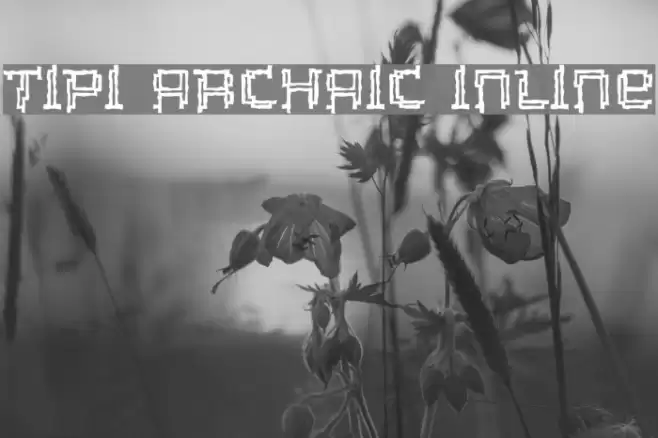
Tipi Archaic Inline Font
Tipi Archaic Inline Description
This font features a rugged, hand-drawn style with an archaic and tribal aesthetic. The characters are outlined with a rough, uneven stroke that gives them a distinct, organic appearance. The uppercase and lowercase letters maintain a consistent height, while the numerals and special characters follow the same design principles. The overall look is reminiscent of ancient carvings or primitive art, making it ideal for projects that require a historical or cultural touch. The font's unique style is both eye-catching and memorable, suitable for creative and thematic designs.
A rugged, hand-drawn font with an archaic, tribal aesthetic from Uncategorized fonts.
- Proposed Projects: Ideal for cultural or historical themed projects, artistic designs, and creative branding.
- Use Case: Headlines, Logos, Artistic designs